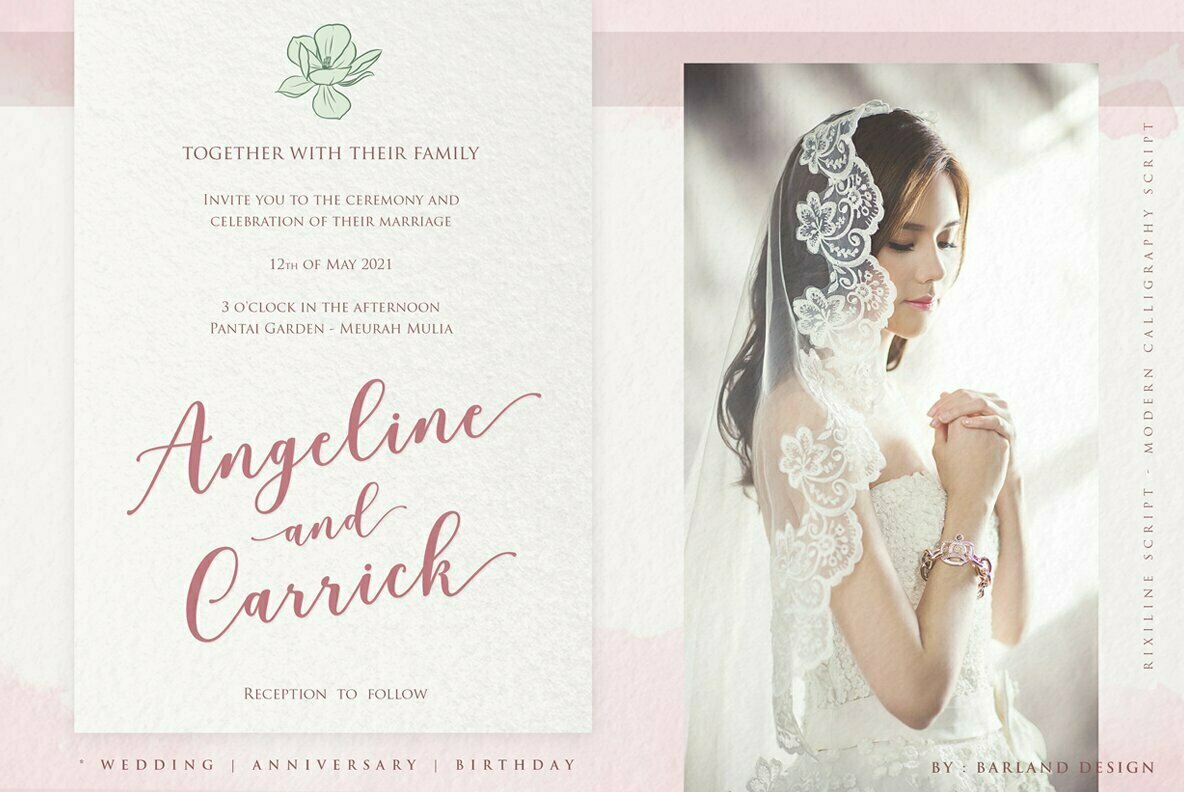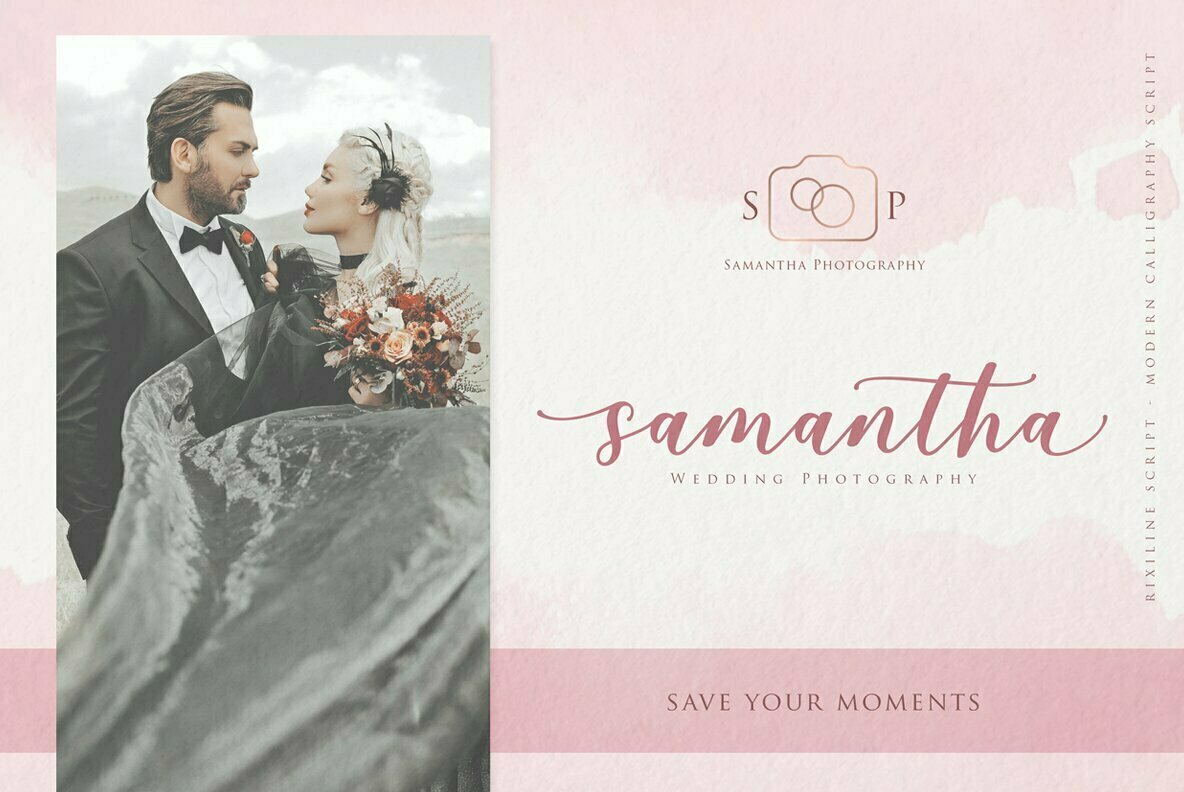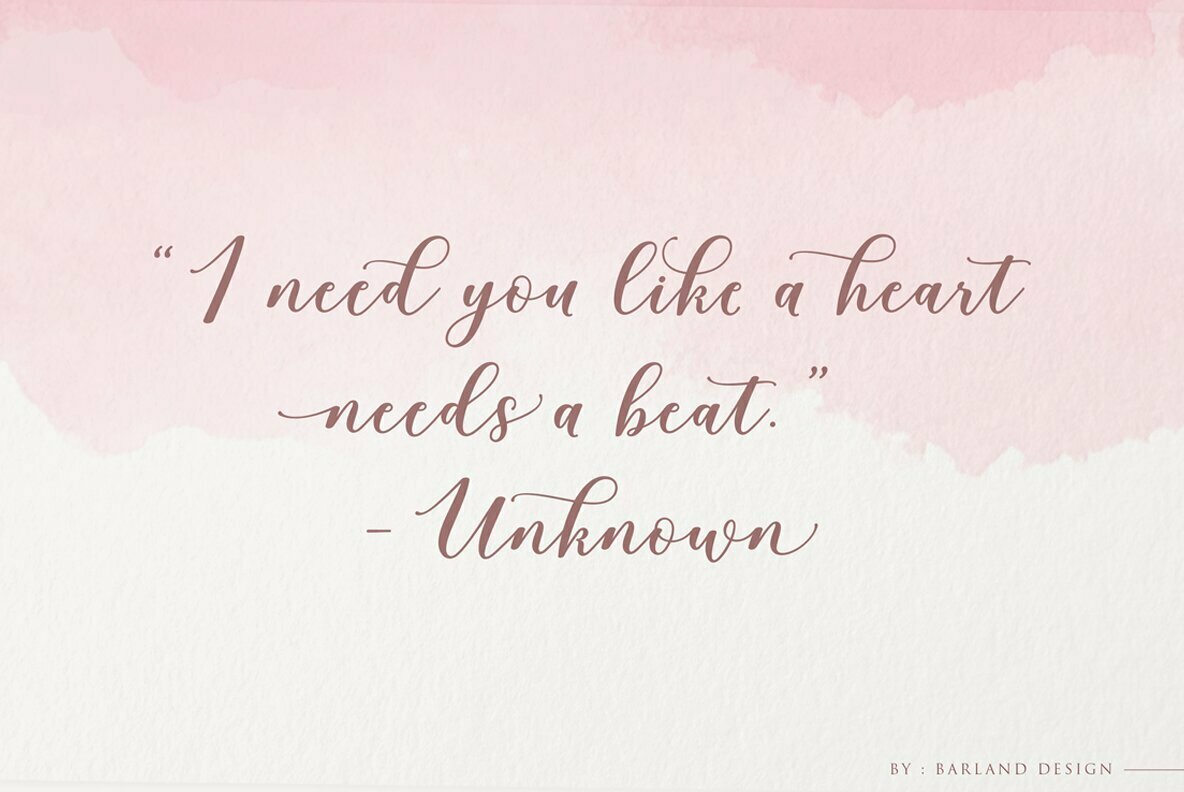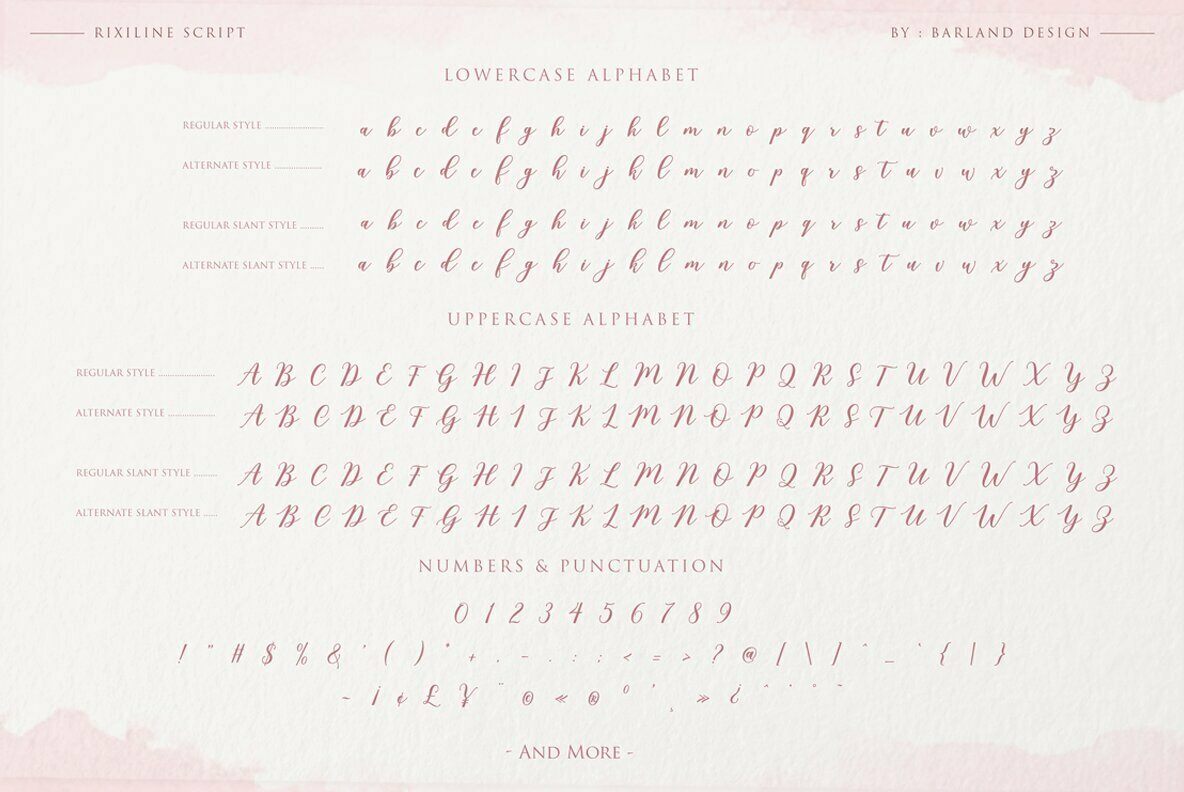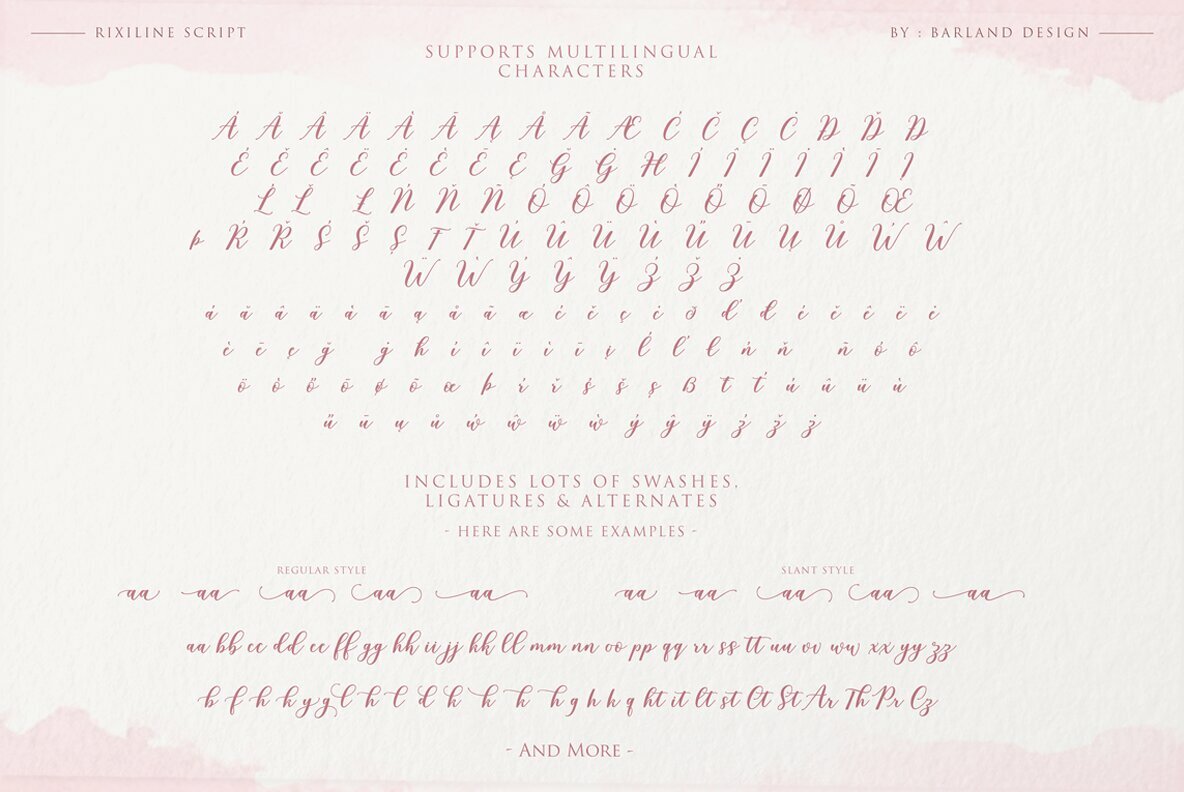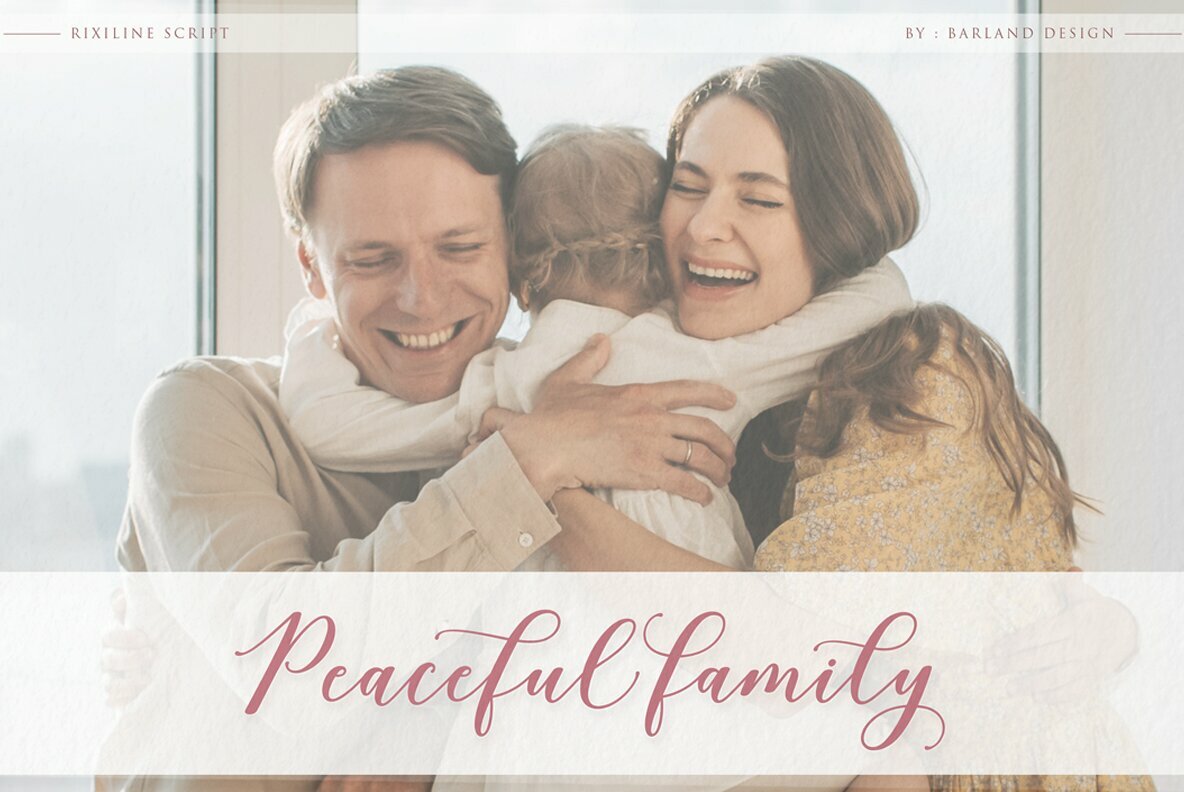
Rixiline Script Font
Rixiline Script
Rixiline Slant Script
Rixiline Script, a unique blend of classic and modern font. imperfect style ups and downs, like a dance letters, smooth, clean and simple. Rixiline Script perfect for wedding, event, invitation, escort card, clothes, display, logos, quotes, slider blog, custom address, stamps, packaging, greeting card, etc.
Rixiline Script comes with a complete set of standard characters, eastern diacritic symbols, consist 917 glyphs in total, and alternative characters as OpenType features to play with. The alternative characters were divided into several OpenType features such as Ligature and Stylistic Sets. You can create an attractive message by using the alternate characters in your design.
Features Rixiline Script:
- Stylistic Set
- Lots of Swashes, Ligatures & Alternates
- PUA Encode (Specially Coded Fonts)
- Support Latin Pro Character